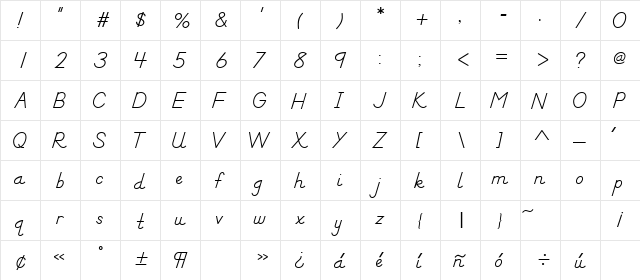
DN Manuscript Regular
Design Context for DN Manuscript Typeface
DN Manuscript brings a calligraphic fluidity to the page — its connecting strokes and expressive curves give it an unmistakably human quality.
Font Pairing: Combine DN Manuscript with a simple geometric sans for maximum contrast — the tension between flowing curves and clean structure is a classic typographic pairing.
Pro Tip: Use DN Manuscript for short runs of text — names, titles, or taglines. Extended body copy in script faces tires the eye quickly.